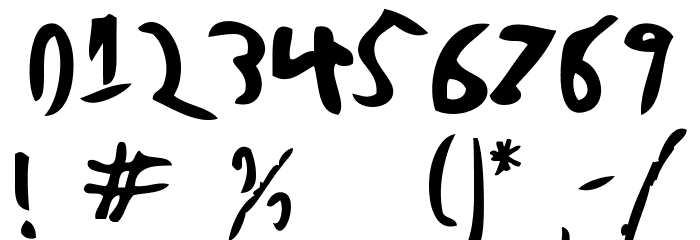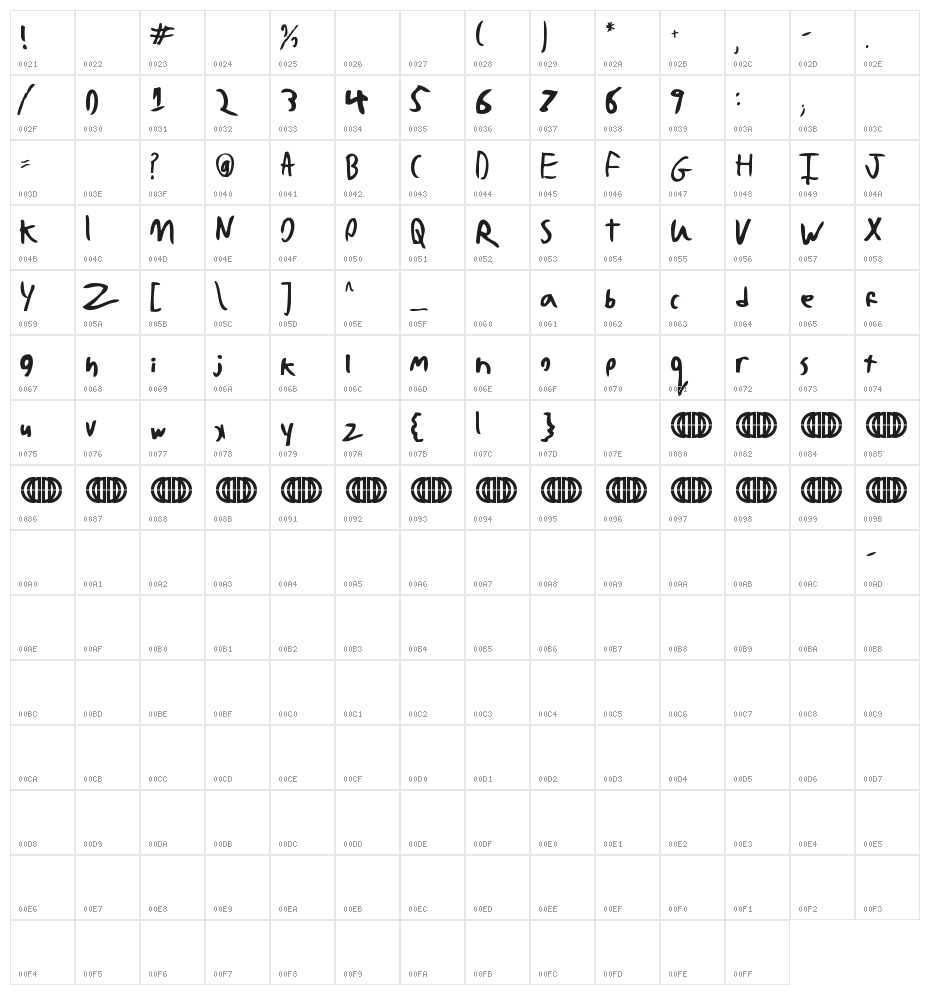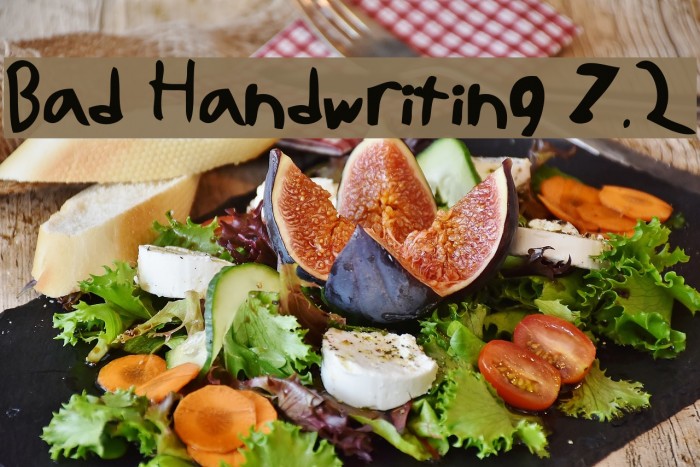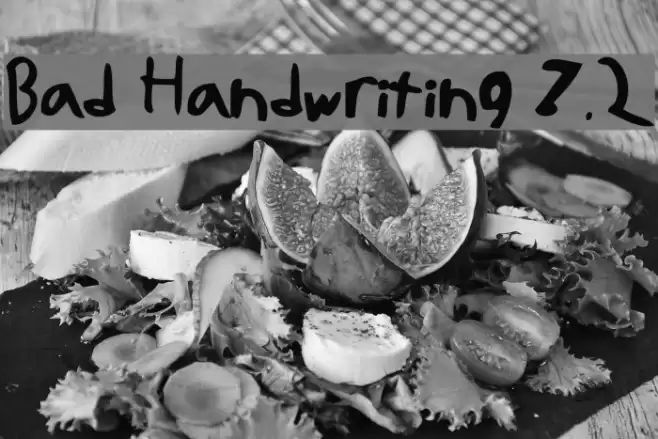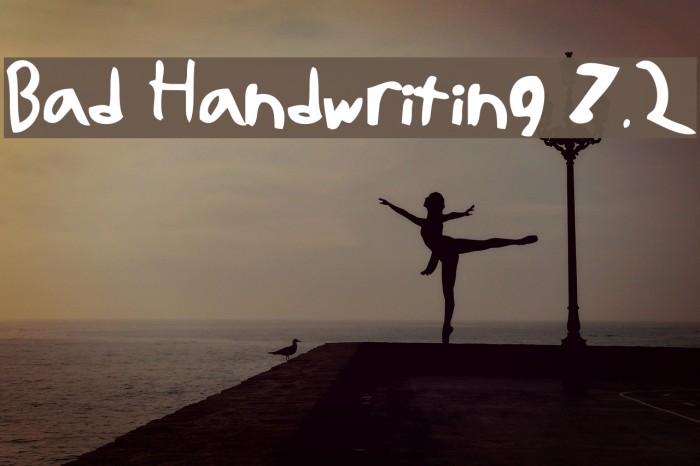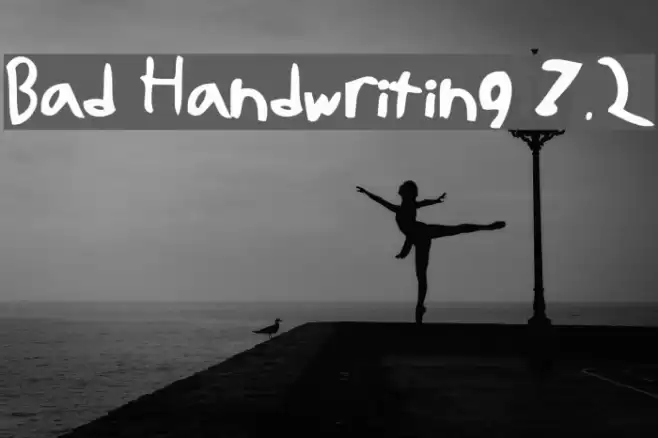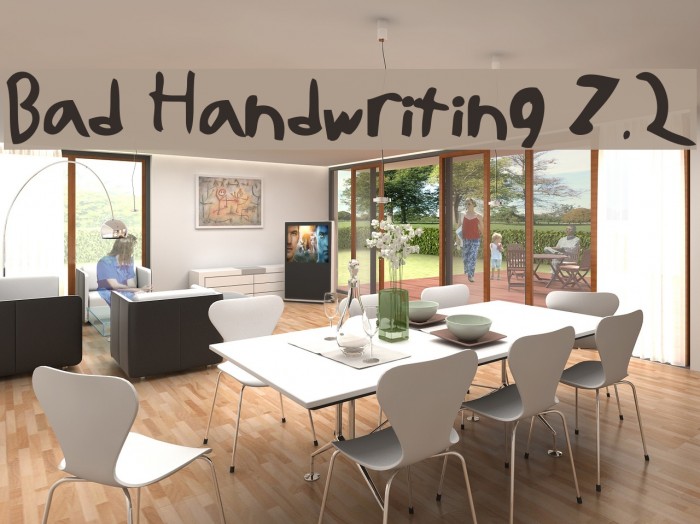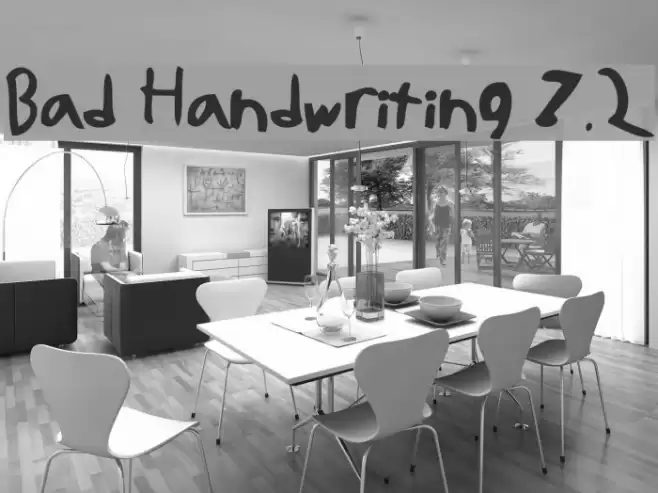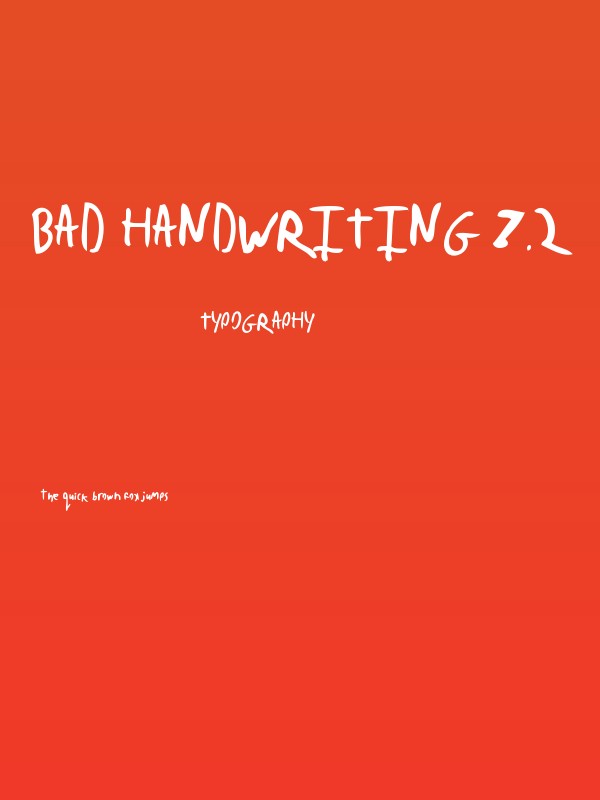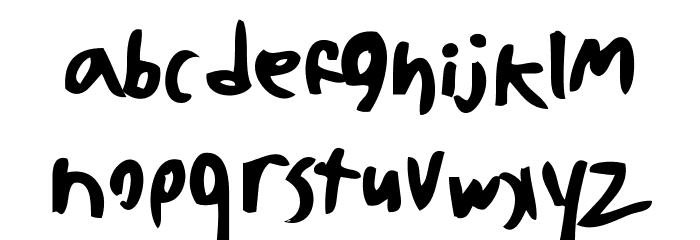
Bad Handwriting 7.2 Font
Bad Handwriting 7.2 Description
This font features a playful and informal style, reminiscent of casual handwriting. The letters are unevenly sized and spaced, giving it a spontaneous and dynamic appearance. The strokes are bold and slightly irregular, adding to the font's quirky charm. It captures the essence of a handwritten note, with each character exhibiting unique quirks and variations. The uppercase and lowercase letters maintain a consistent style, while the numbers and special characters integrate seamlessly, preserving the font's overall aesthetic. This font is ideal for projects that require a personal touch or a sense of whimsy.